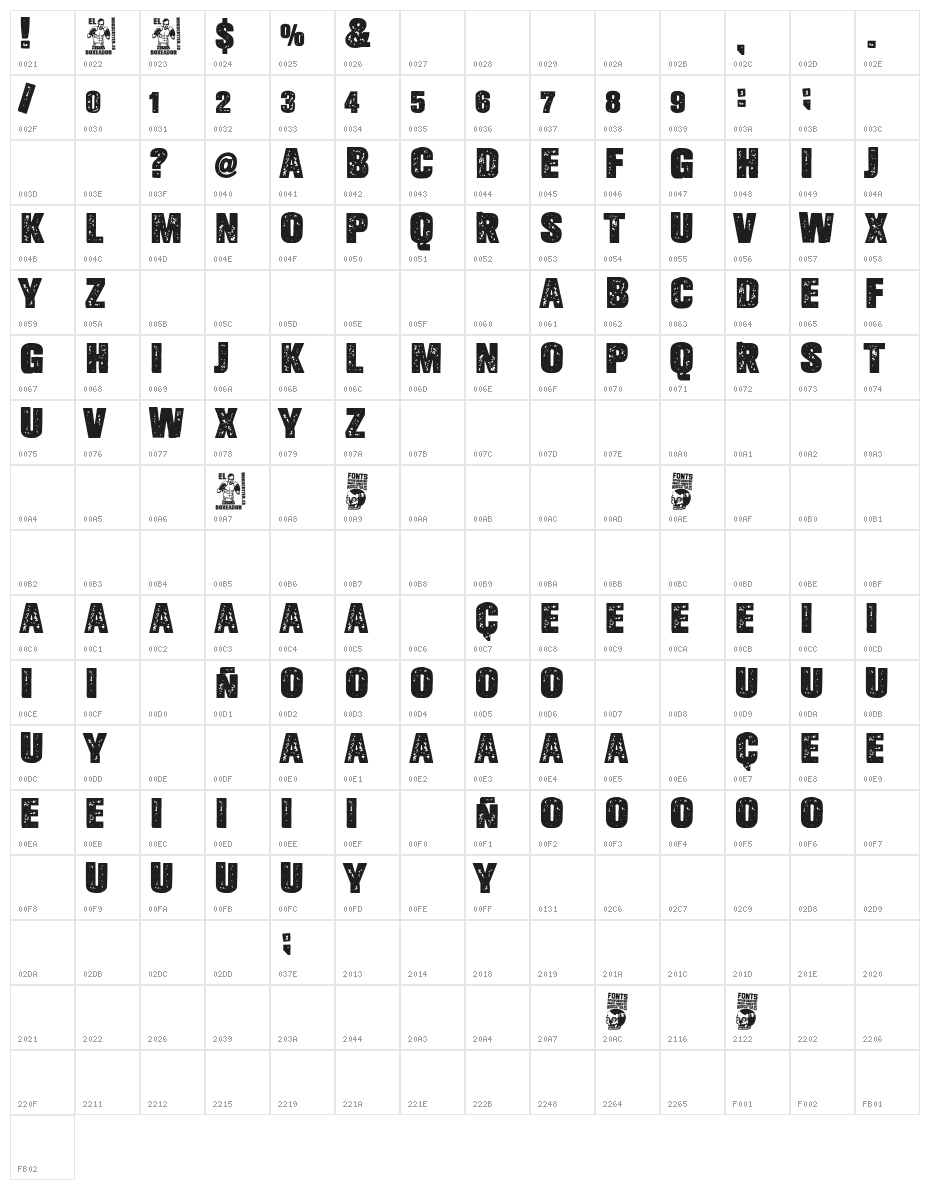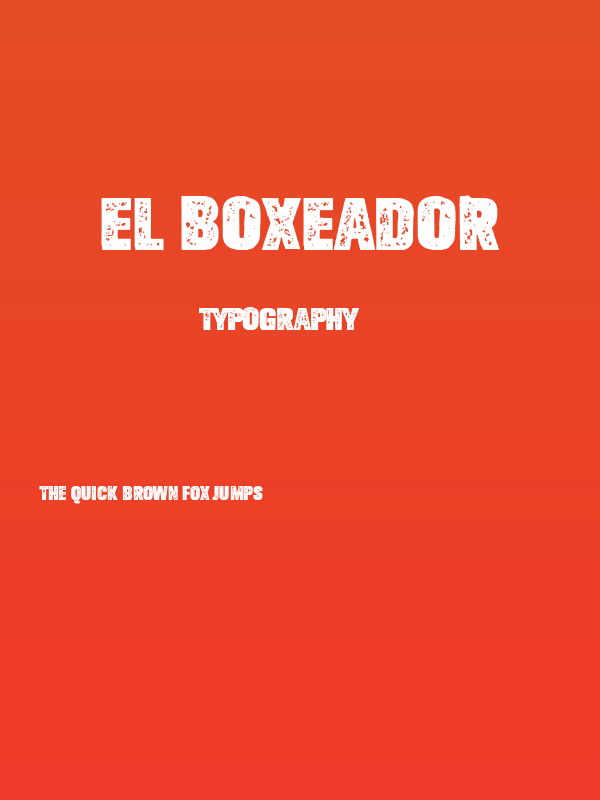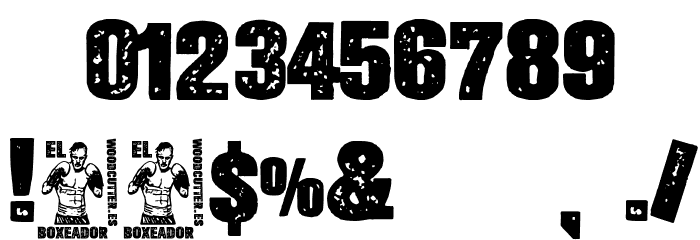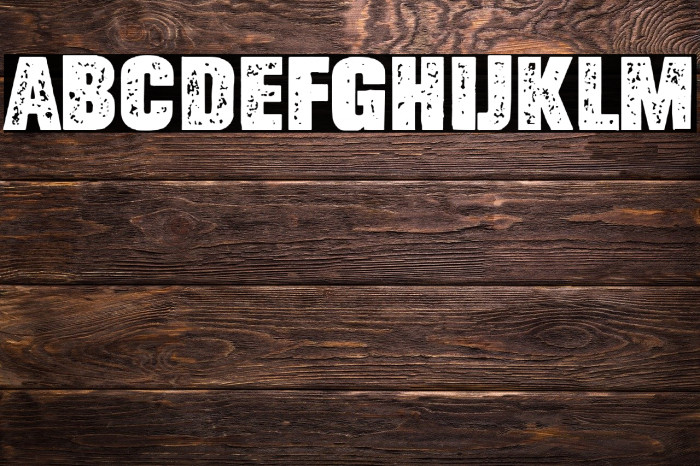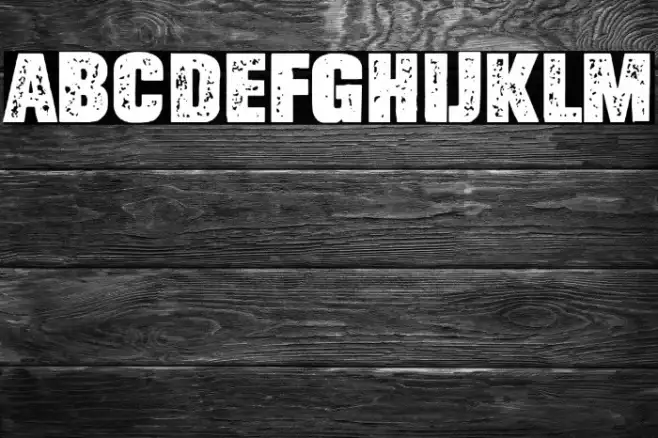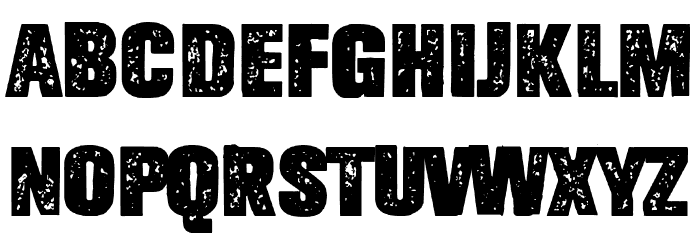
El Boxeador Font
El Boxeador Description
This font features a bold, distressed style with a rugged, textured appearance that gives it a vintage and gritty feel. The characters are blocky and robust, with a consistent thickness throughout, creating a strong visual impact. The distressed texture adds a layer of depth and character, making it ideal for designs that require a bold statement. The uppercase and lowercase letters maintain a uniform style, while the numbers and special characters are designed to match the overall aesthetic. This font is perfect for projects that need a touch of toughness and personality.
| Proposed Projects | Ideal for posters, album covers, branding, and any design needing a bold, vintage look. |